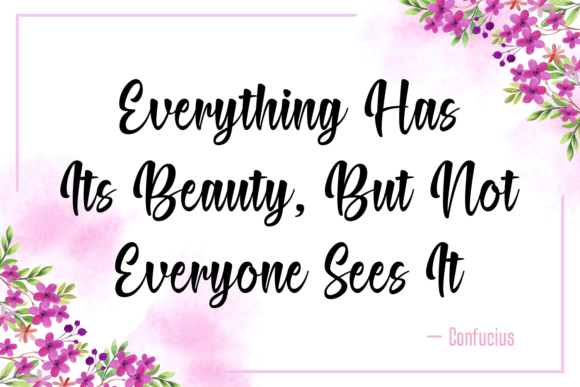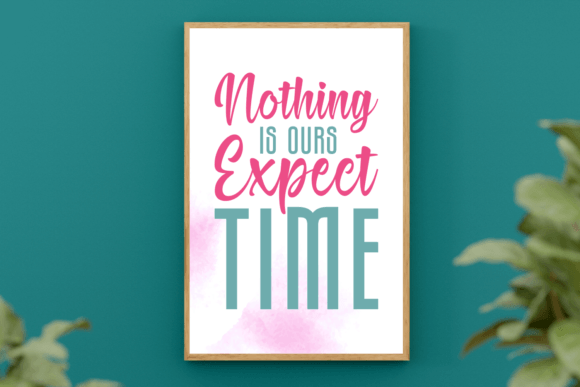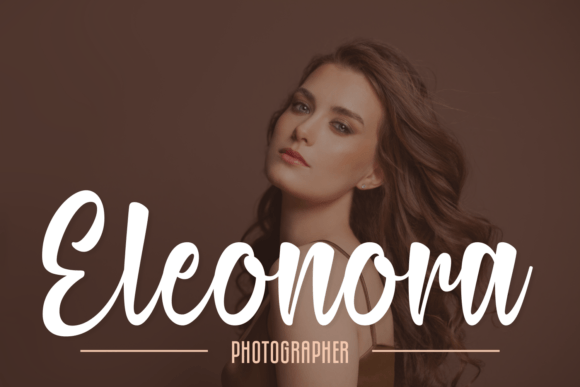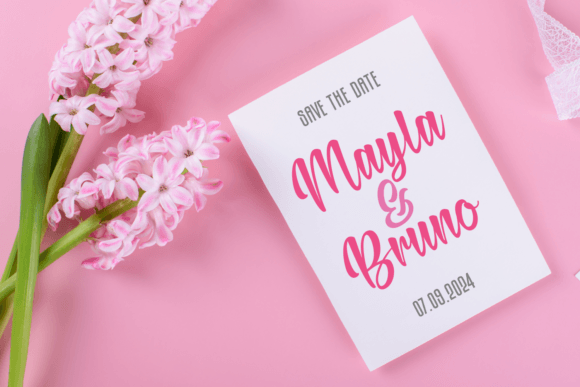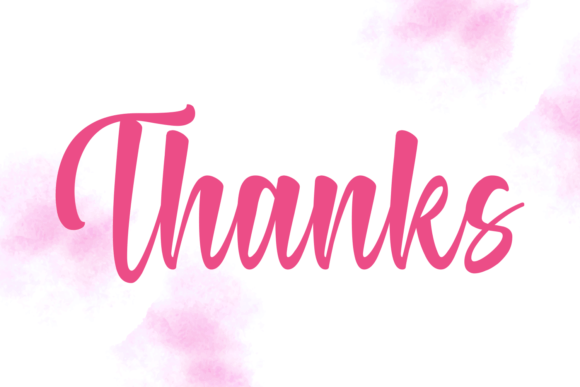
Introduction to Delight Hearts Font Font
Fonts play a crucial role in design, and the Delight Hearts Font font is a typeface that brings both character and versatility to any project. Whether you’re working on a branding project, a website, or a print design, the Delight Hearts Font font offers a unique style that can elevate your work.
| 📌 Font Name | Delight Hearts Font |
| 👤 Author | Jasm (7NTypes) |
Delight Hearts is a sweet and friendly handwritten font.
Key Features of Delight Hearts Font Font
Why Choose Delight Hearts Font Font?
The Delight Hearts Font font is more than just a typeface – it’s a design tool that helps you communicate your message with style and clarity. Its unique character set and versatile design make it suitable for a wide range of applications, from elegant invitations to bold headlines.
With its carefully crafted letterforms and balanced proportions, the Delight Hearts Font font ensures readability and visual appeal across all mediums.
What makes Delight Hearts Font font special?
The Delight Hearts Font font stands out with its unique design, exceptional readability, and versatility across various design applications.